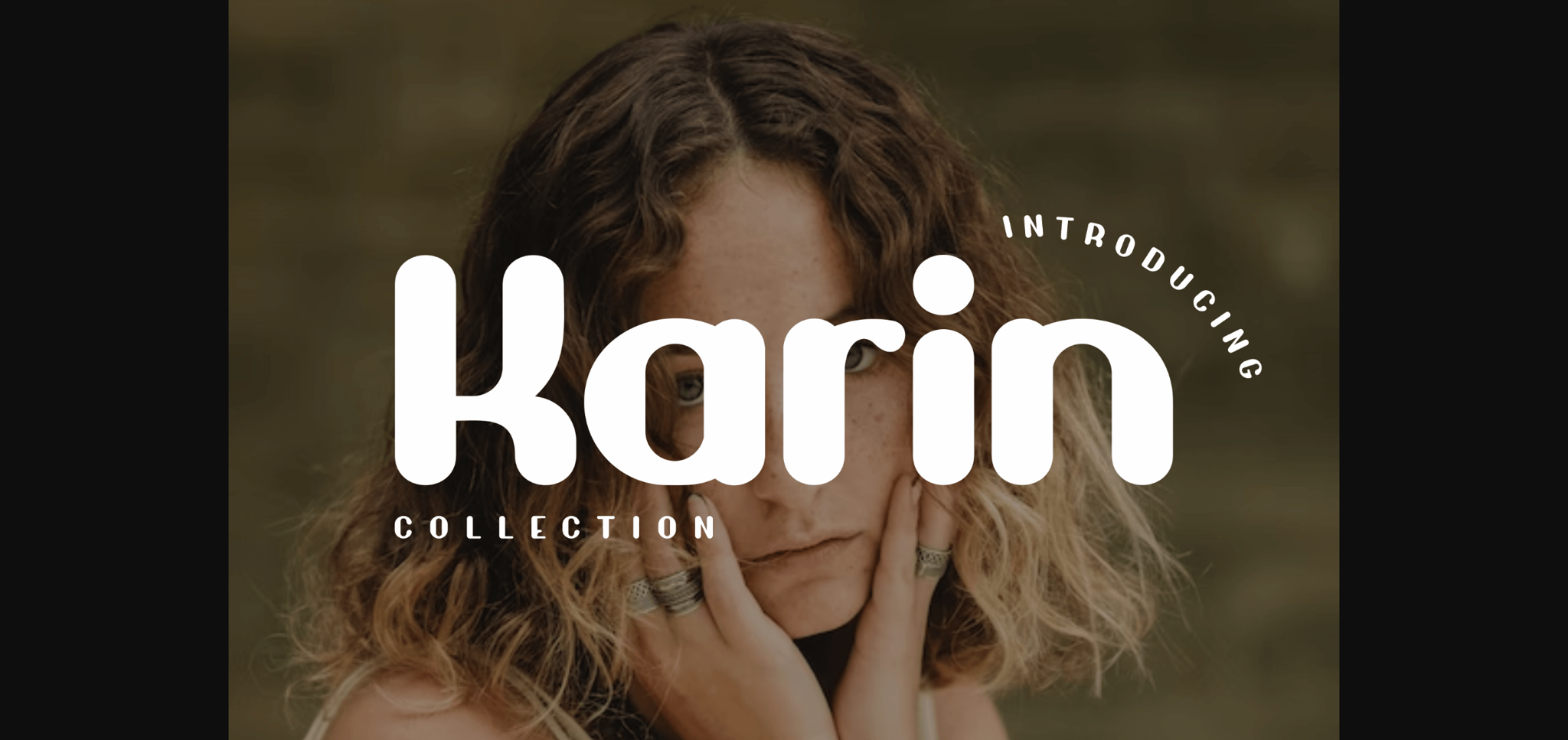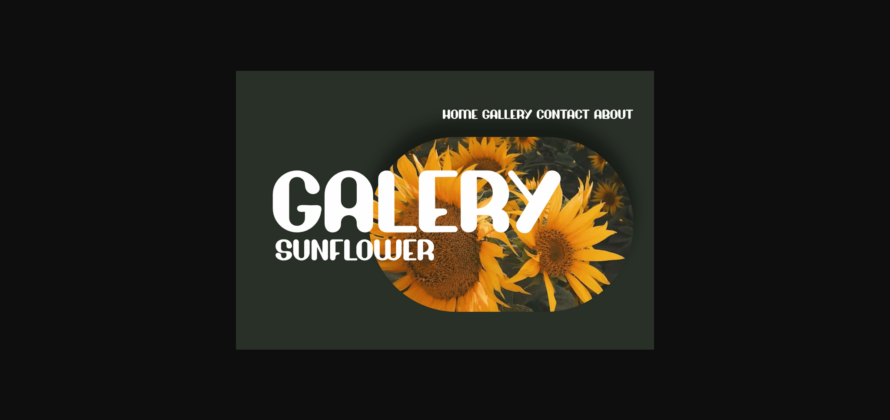
About Karin Collection Font
Karin Collection is a classy and elegant sans serif font. No matter the topic, this font will be an incredible asset to your fonts’ library, as it has the potential to elevate any creation.